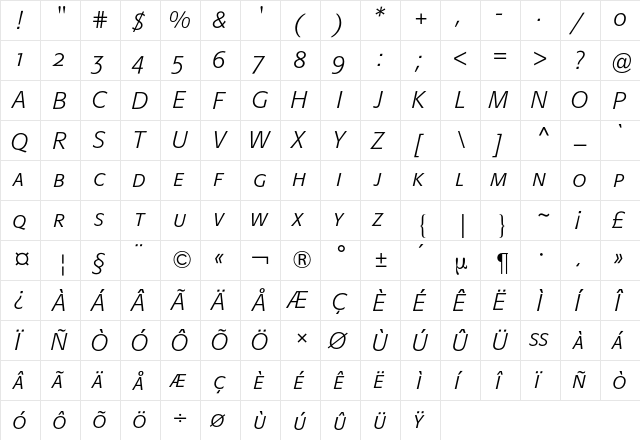
Formata Expert BQ Regular
Design Context for Formata Expert BQ Typeface
Formata Expert BQ is a composed and adaptable typeface that performs quietly and consistently across a wide range of design contexts.